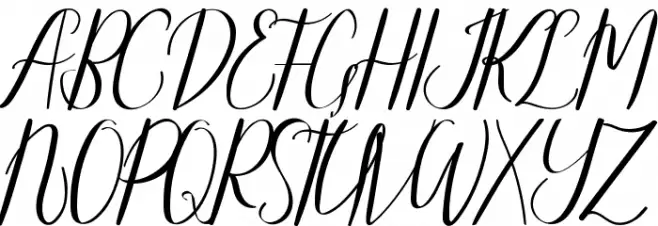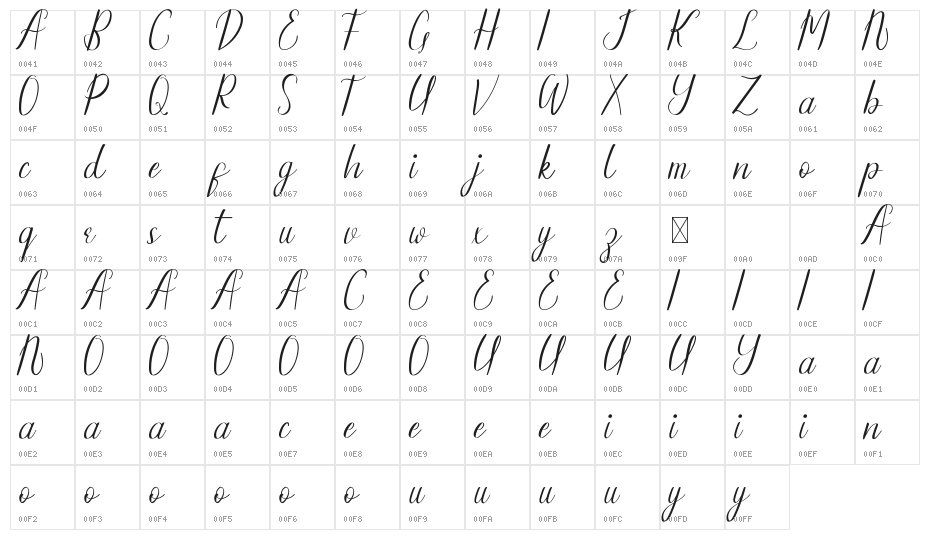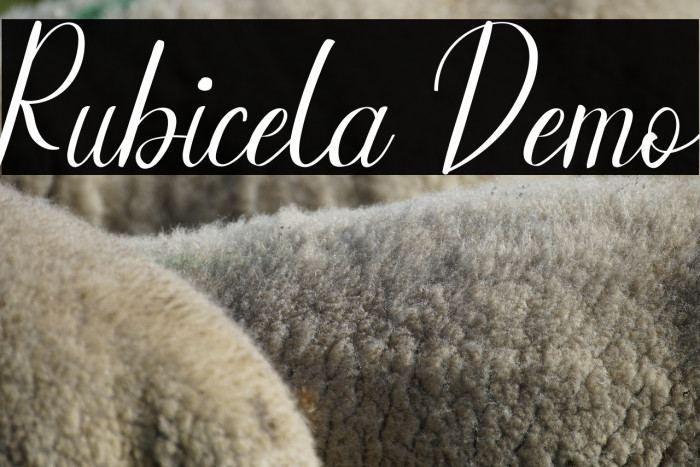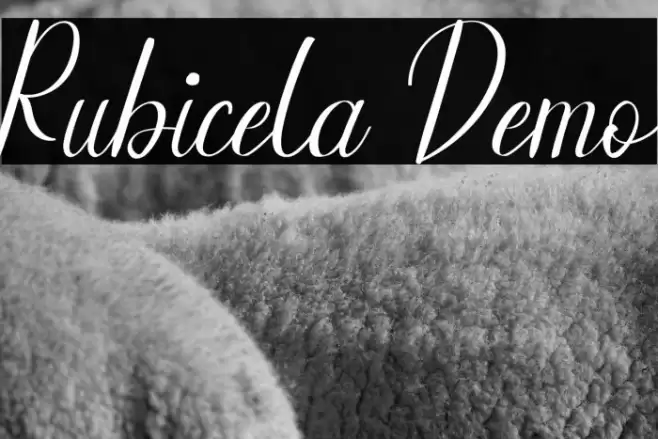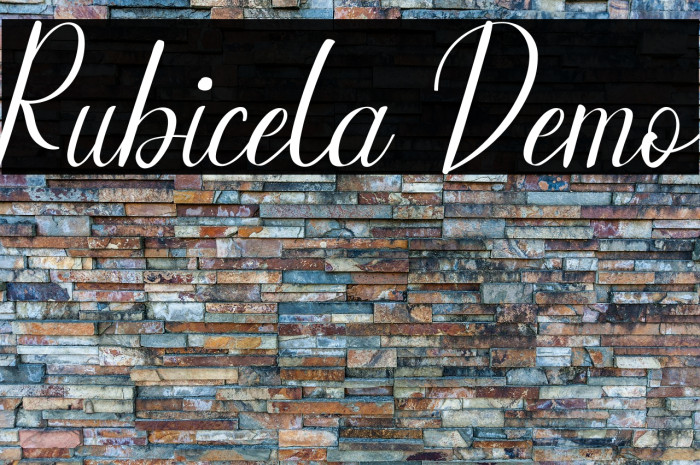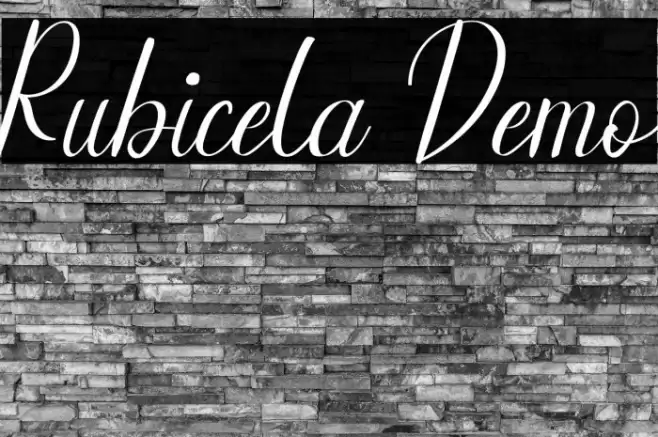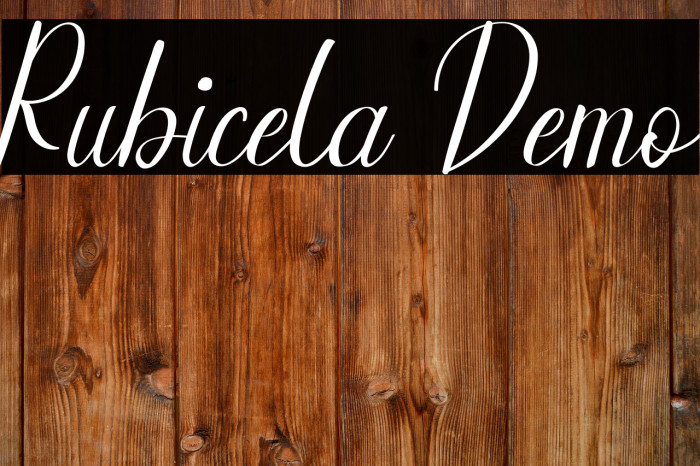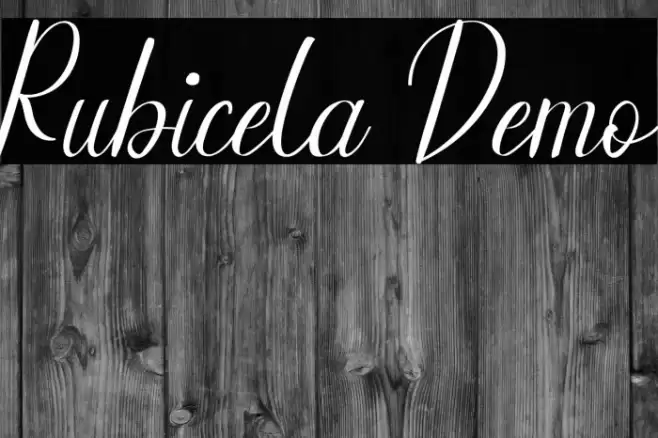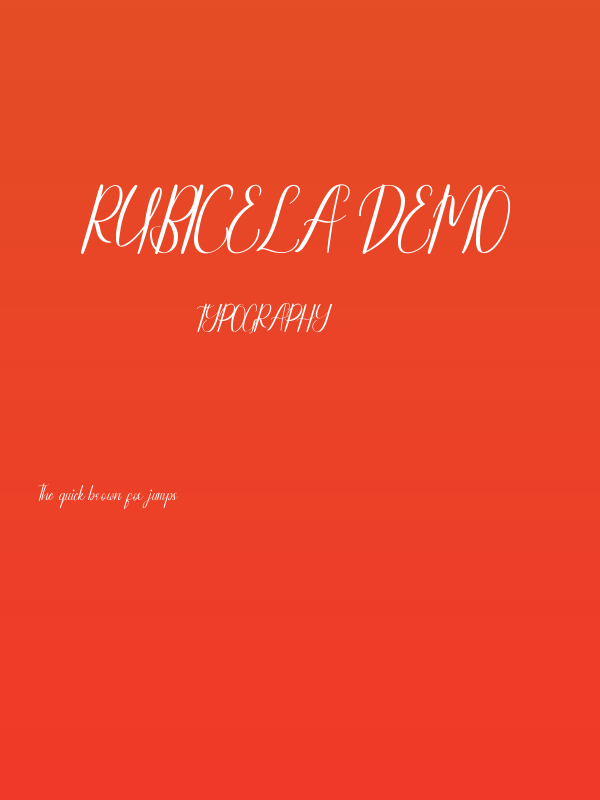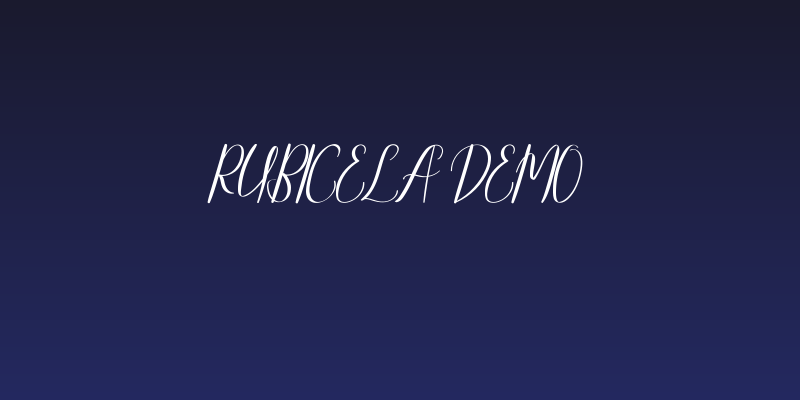
Rubicela Demo Font
Rubicela Demo Description
This elegant script font features a flowing, cursive style with a modern twist. The letters are characterized by their smooth, sweeping curves and delicate, elongated forms, creating a sense of movement and grace. The uppercase letters are particularly ornate, with intricate loops and flourishes that add a touch of sophistication. The lowercase letters maintain a consistent style, complementing the uppercase with their own subtle embellishments. The font's overall appearance is both stylish and readable, making it suitable for a variety of design applications. The spacing between characters is balanced, ensuring legibility while maintaining the font's decorative appeal.
| Proposed Projects | Ideal for wedding invitations, elegant branding, greeting cards, and high-end product packaging. |